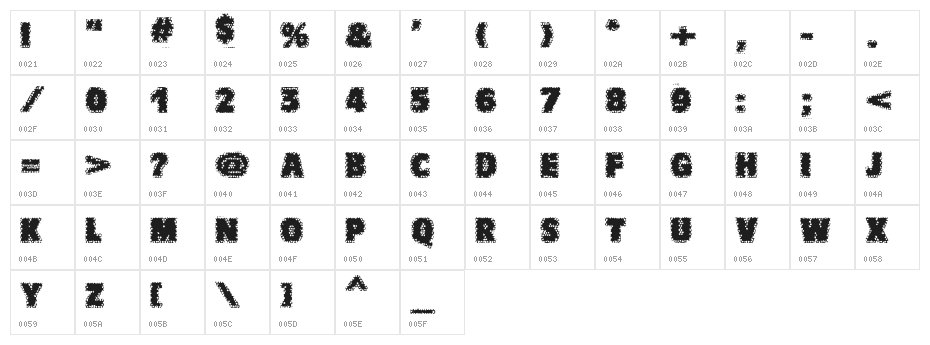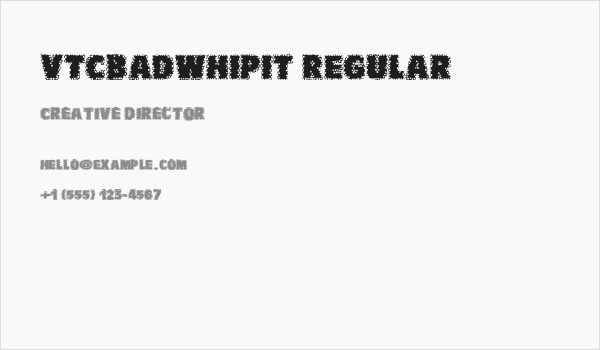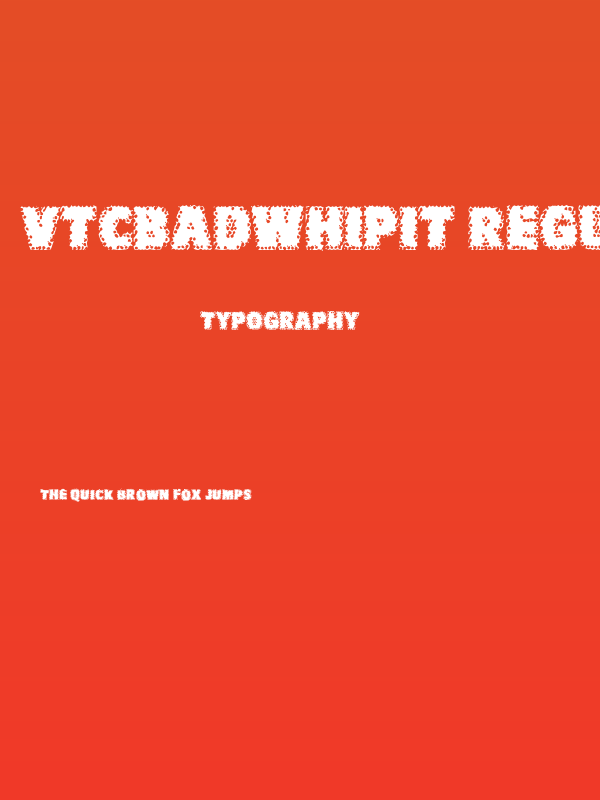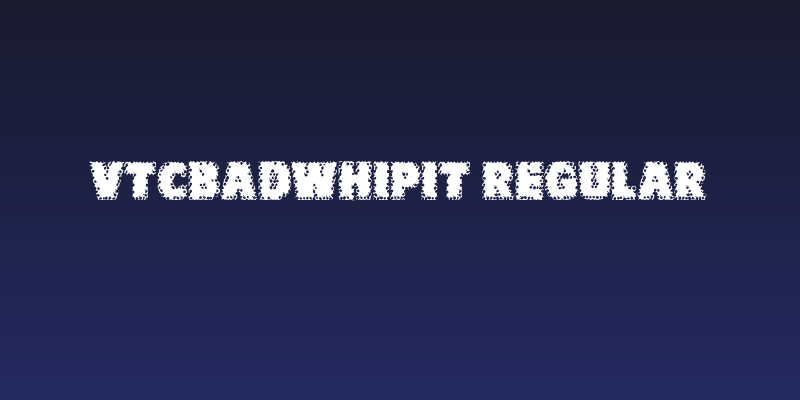
VTCBadWhipit Regular Font
VTCBadWhipit Regular Description
This font features a bold and playful design with a unique texture that resembles a distressed or grunge style. Each character is filled with a pattern of irregular dots and speckles, creating a dynamic and eye-catching appearance. The letters are all uppercase, with a consistent height and width, giving the font a uniform look despite its textured surface. The numbers and special characters follow the same design, ensuring a cohesive style throughout. This font is perfect for projects that require a bold statement or a creative, edgy touch.
| Proposed Projects | Ideal for posters, album covers, event flyers, and any design needing a bold, artistic flair. |